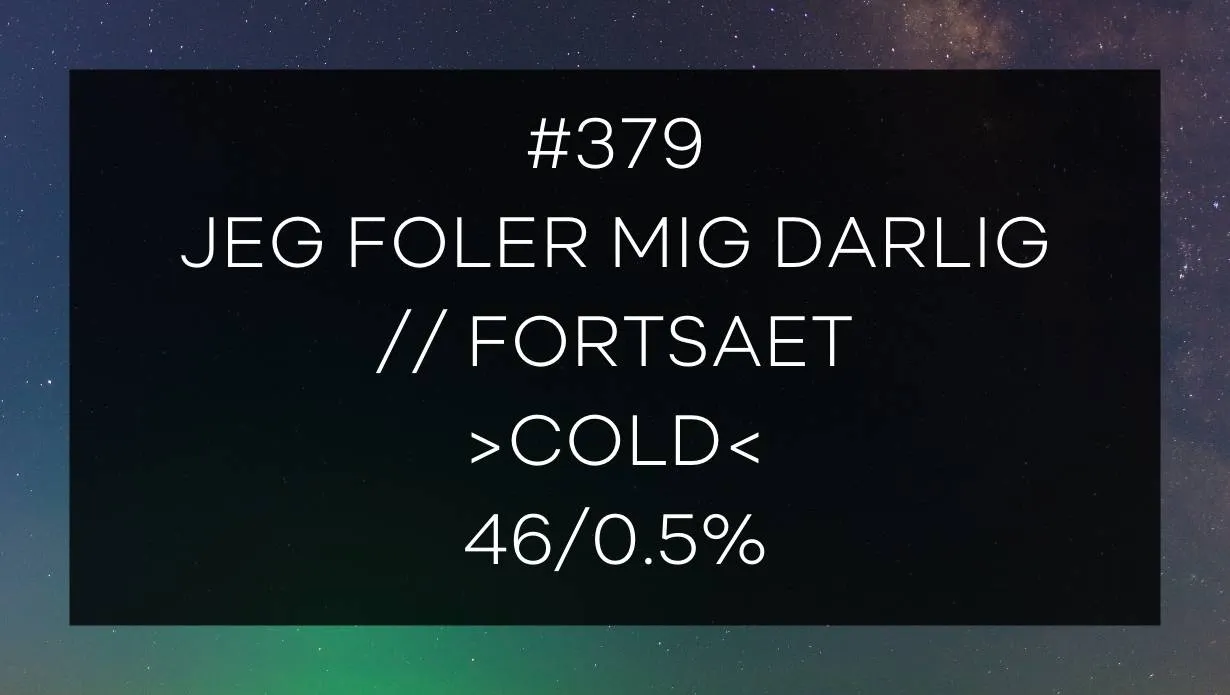
Soin Sans Neue Font is a typeface created by Swiss designer Philippe Soin. The font was released in 2015 and is currently used by many designers for both personal and commercial projects.
Soin Sans Neue Typeface is a sans serif typeface that is characterized by its simple, clean lines. This font style has a very unique texture that makes a very best pair with roboto font. This roboto font is very famous all over the world.
Soin Sans Neue Font Info
| Name | Soin Sans Neue Font |
| Designer | Philippe Soin |
View of Soin Sans Neue Font